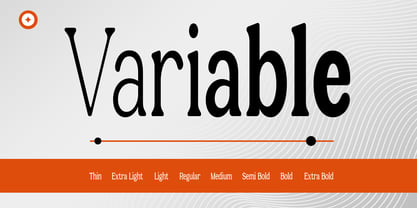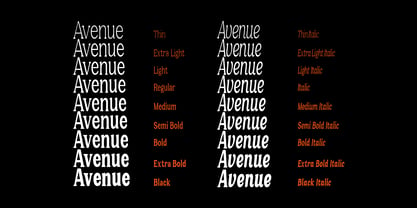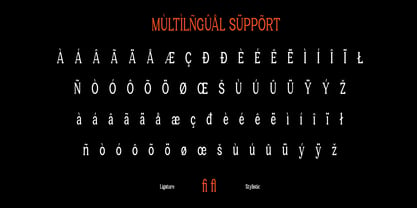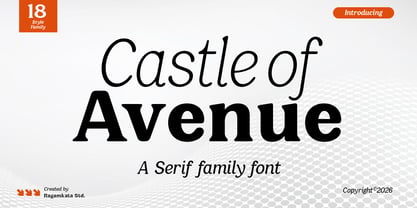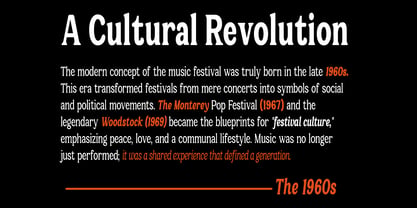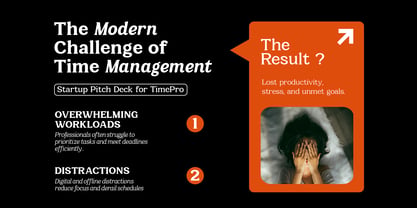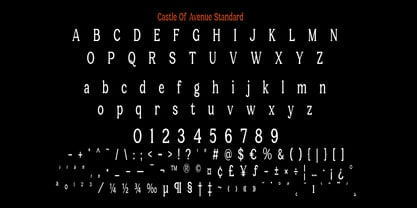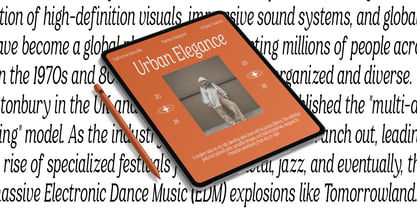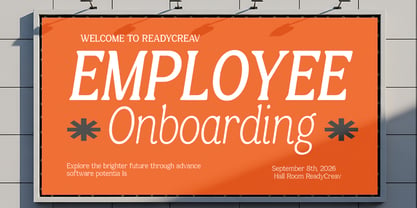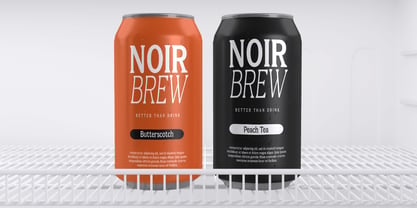
Castle Of Avenue
by RagamKata
The Castle Of Avenue Font Family was designed by Yogiswhara Dio Prakoso Riadi and published by RagamKata. Castle Of Avenue contains 18 styles and family package options. More about this family
Castle of Avenue is a refined serif font family that embodies elegance, versatility, and timeless sophistication, making it ideal for modern design. With 18 distinct style variations, this typeface provides a comprehensive typographic system that harmonizes classic serif beauty with contemporary flexibility. Its graceful curves and robust letterforms ensure a perfect balance of readability and visual impact. This font is perfect for branding, editorial design, luxury packaging, fashion magazines, logos, and high-end visual identities, adapting effortlessly to various creative needs. From delicate italic styles to bold, powerful weights, Castle of Avenue empowers designers to create cohesive and dynamic typography systems with ease. Whether you're developing a premium brand identity, designing elegant publications, or crafting stylish marketing visuals, Castle of Avenue delivers a polished and professional appearance. Its versatility and extensive range of styles make it an essential font family for designers seeking both functionality and aesthetic excellence.